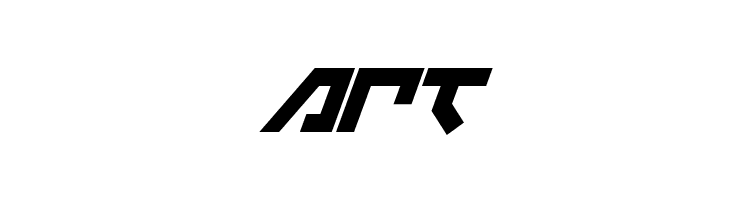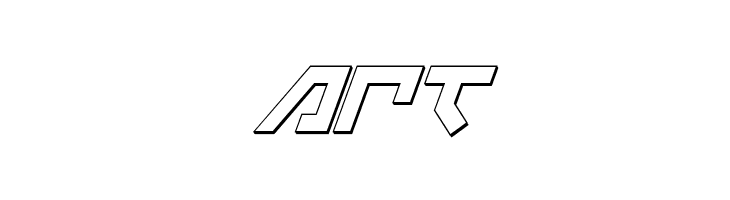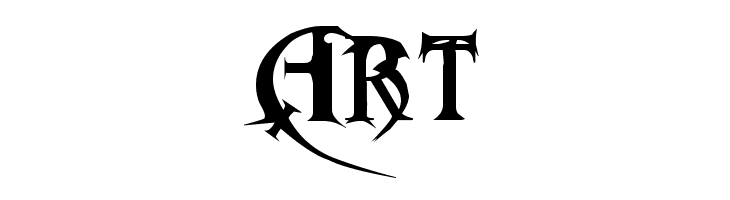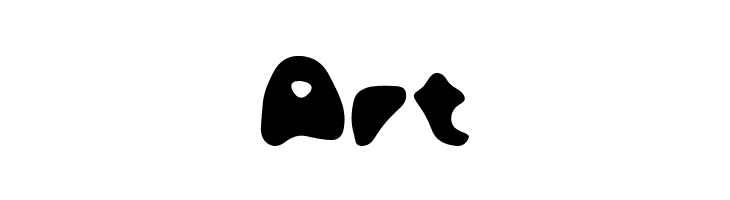
• MeltThreeLvAl
A playful, bold font with organic, melting shapes.
• Mentone SemiBold
• Metal Macabre
A bold, gothic font with sharp, thorn-like details and a macabre aesthetic.
• Metal Storm
A bold, angular font with a futuristic and industrial design.
• Metal Storm 3D
A bold, futuristic font with a 3D metallic effect and sharp geometric shapes.
• Metal Storm 3D Italic
A bold, futuristic 3D italic font with angular, geometric characters.
• Metal Storm Bold
A bold, angular font with a futuristic and industrial style.
• Metal Storm Bold Italic
A bold, italicized font with a futuristic and angular design.
• Metal Storm Condensed
A bold, geometric, and condensed font with a futuristic style.